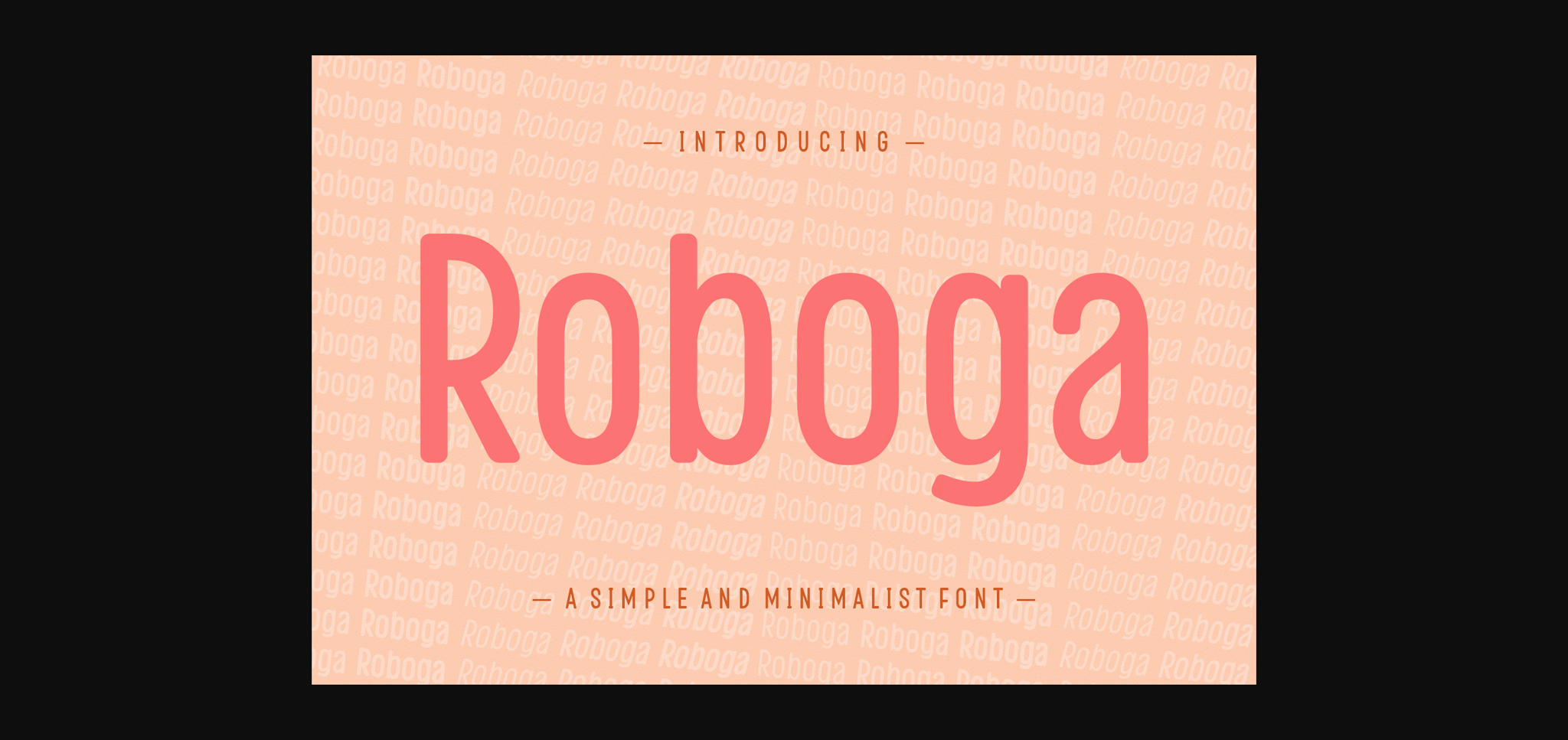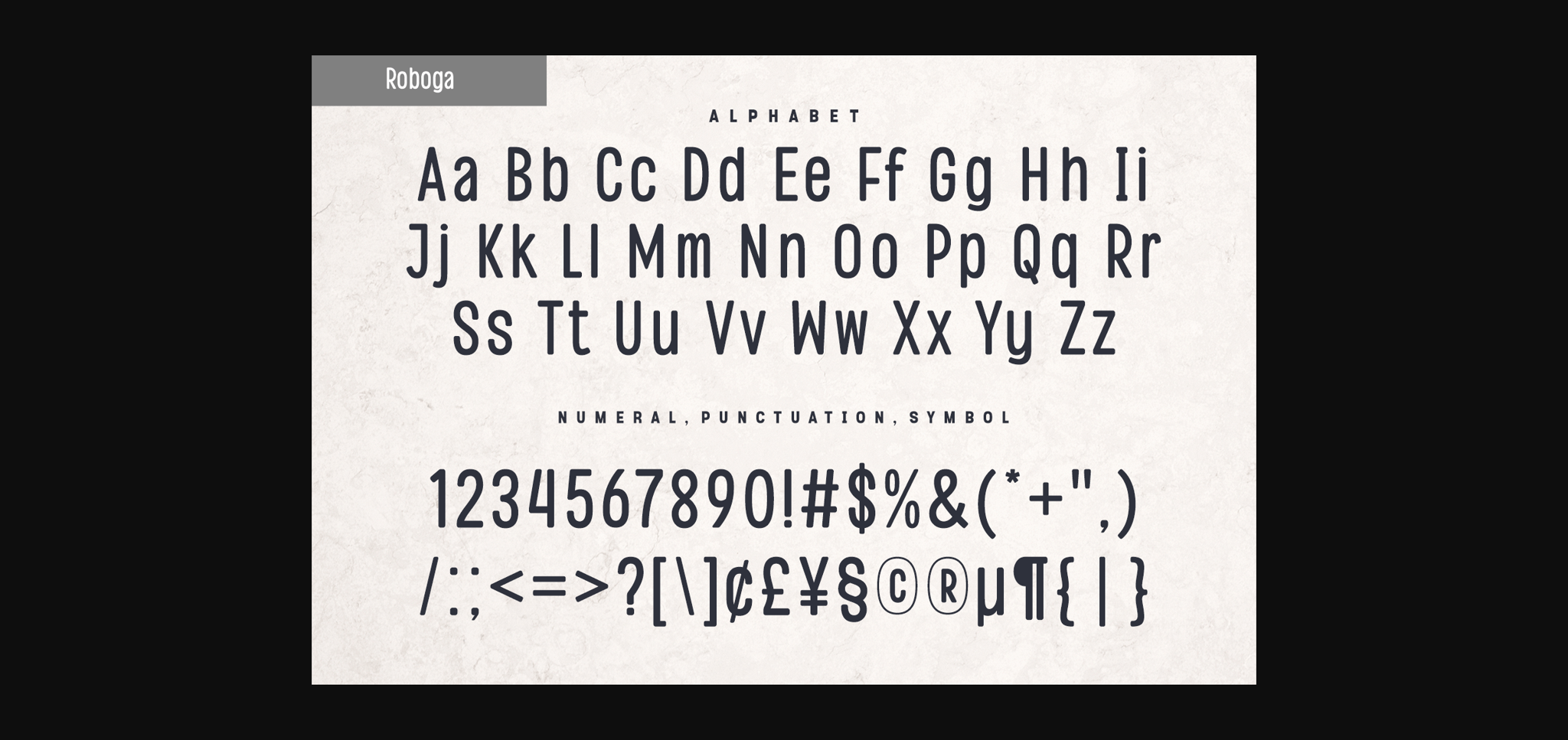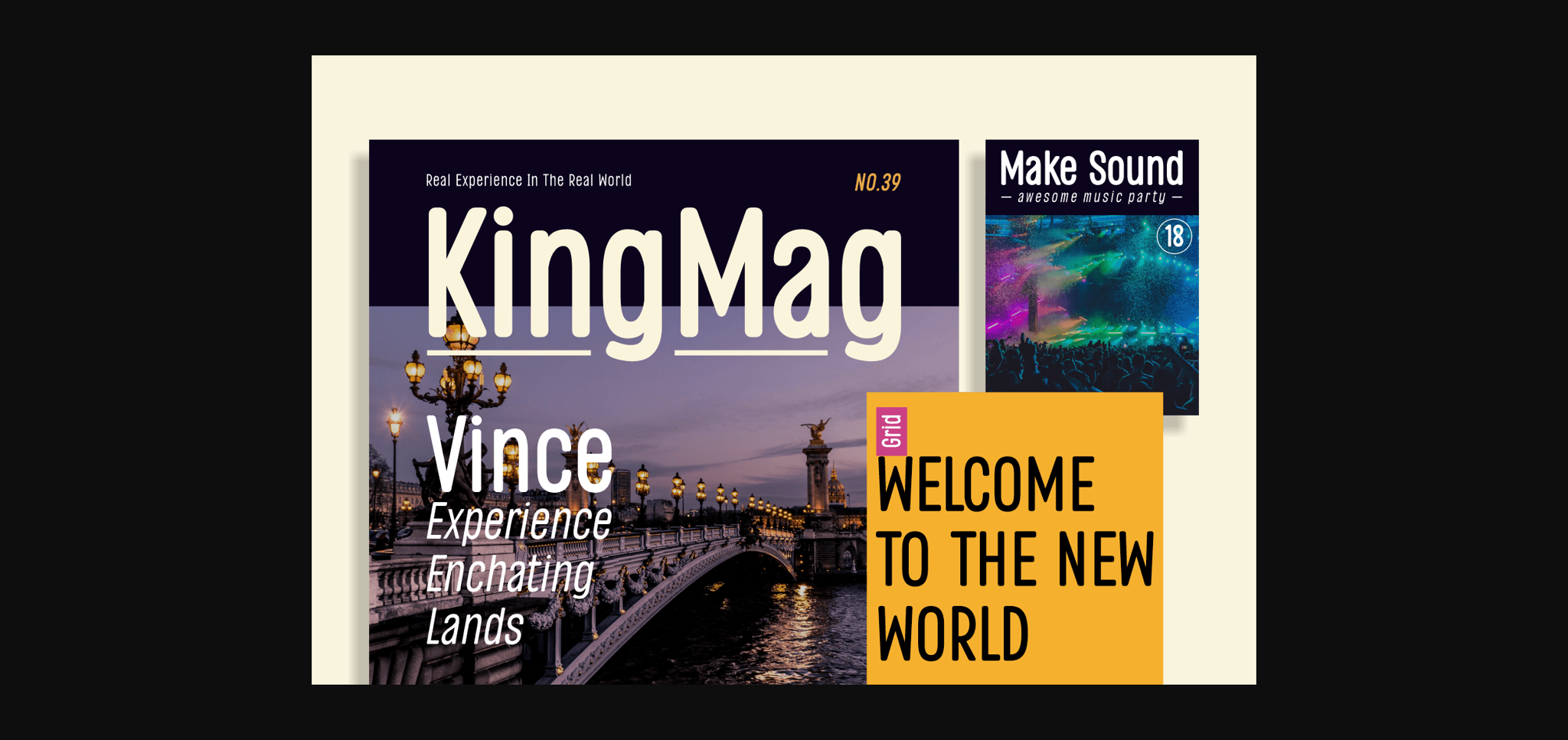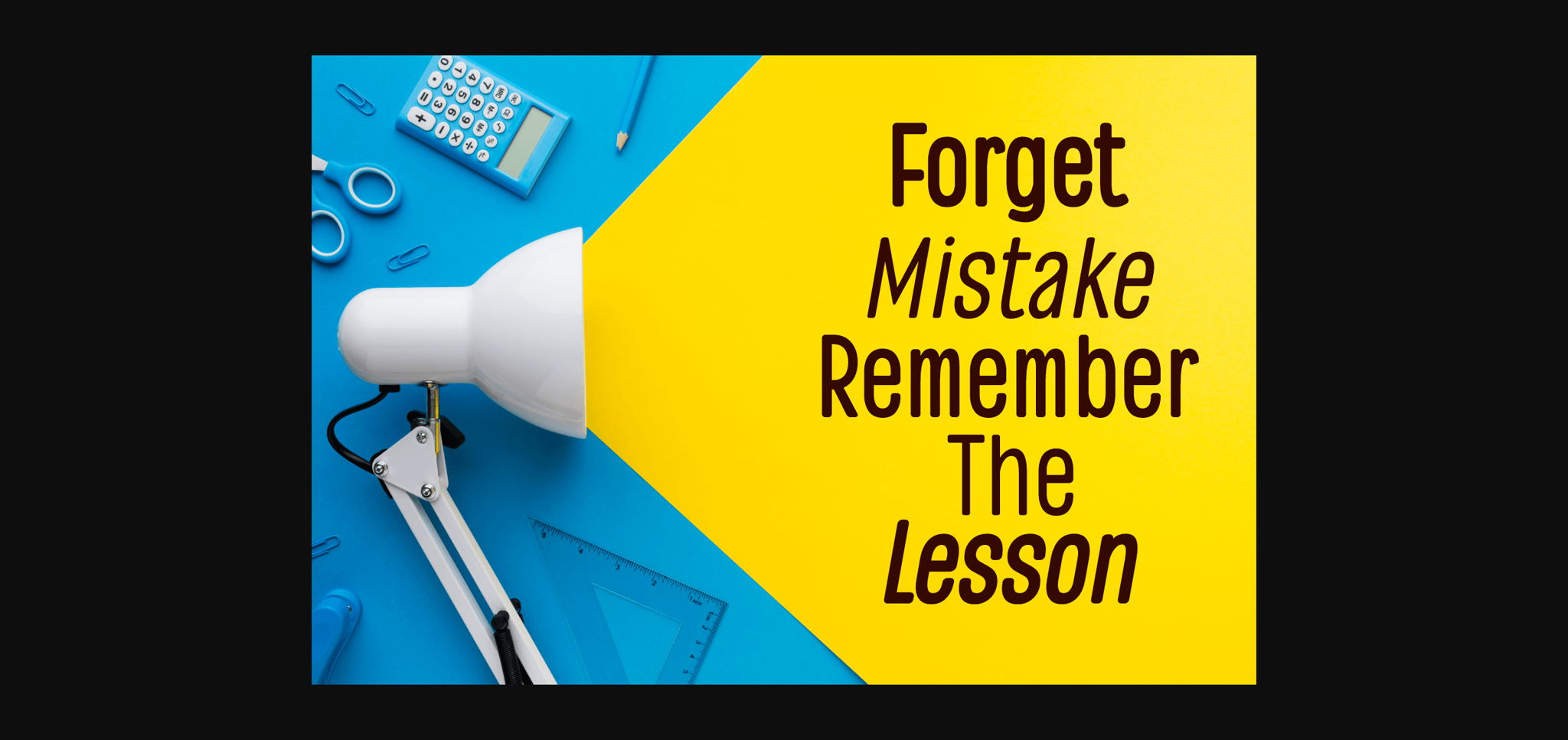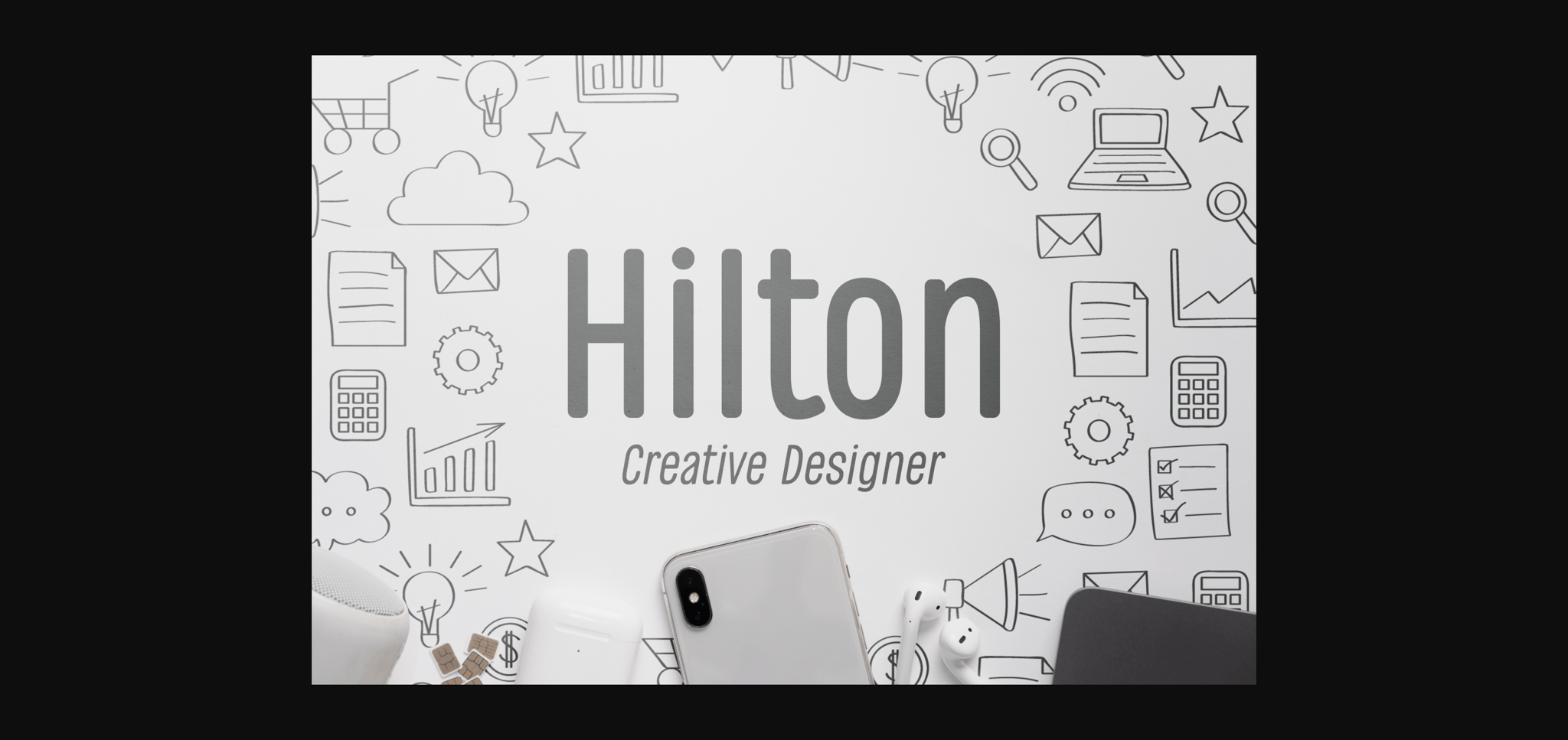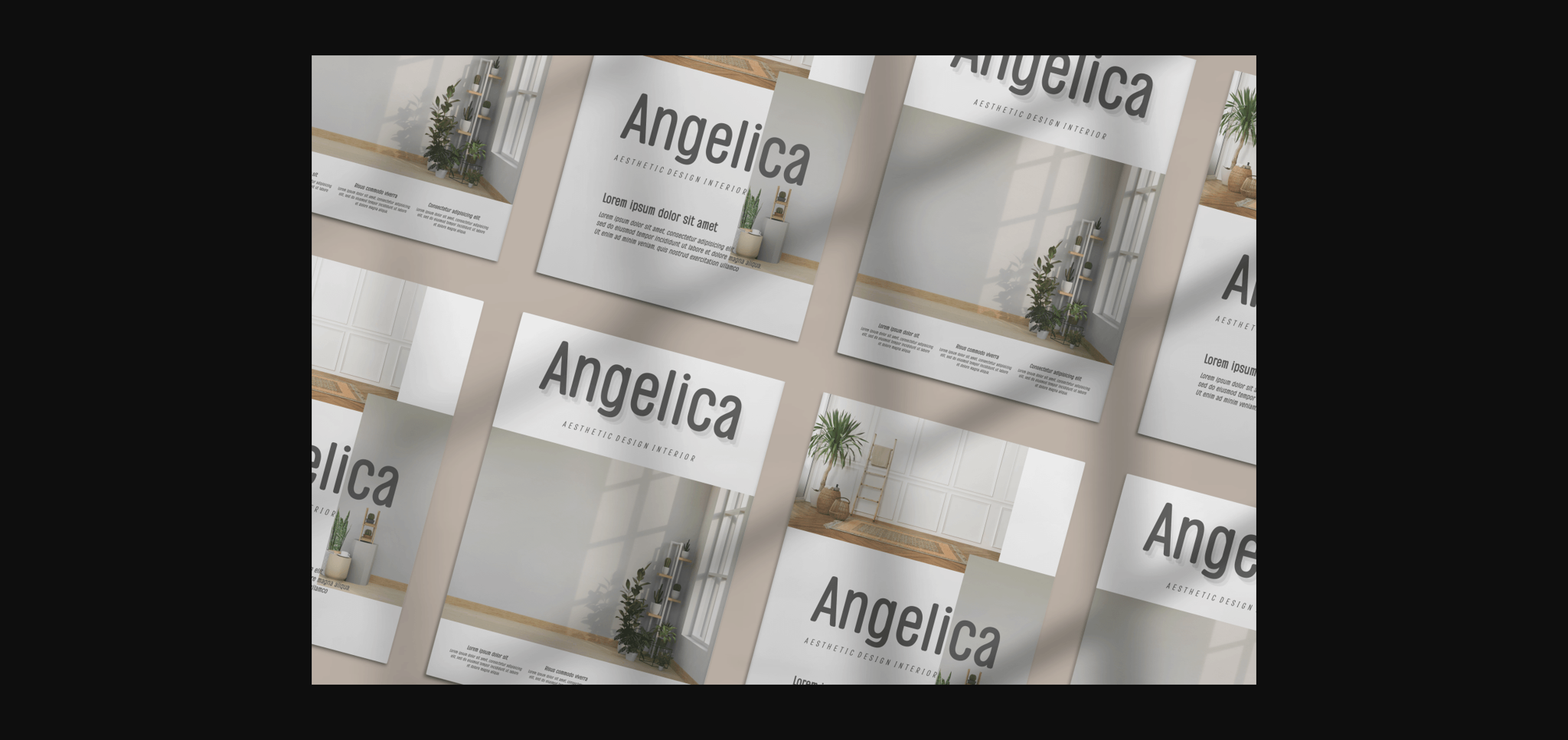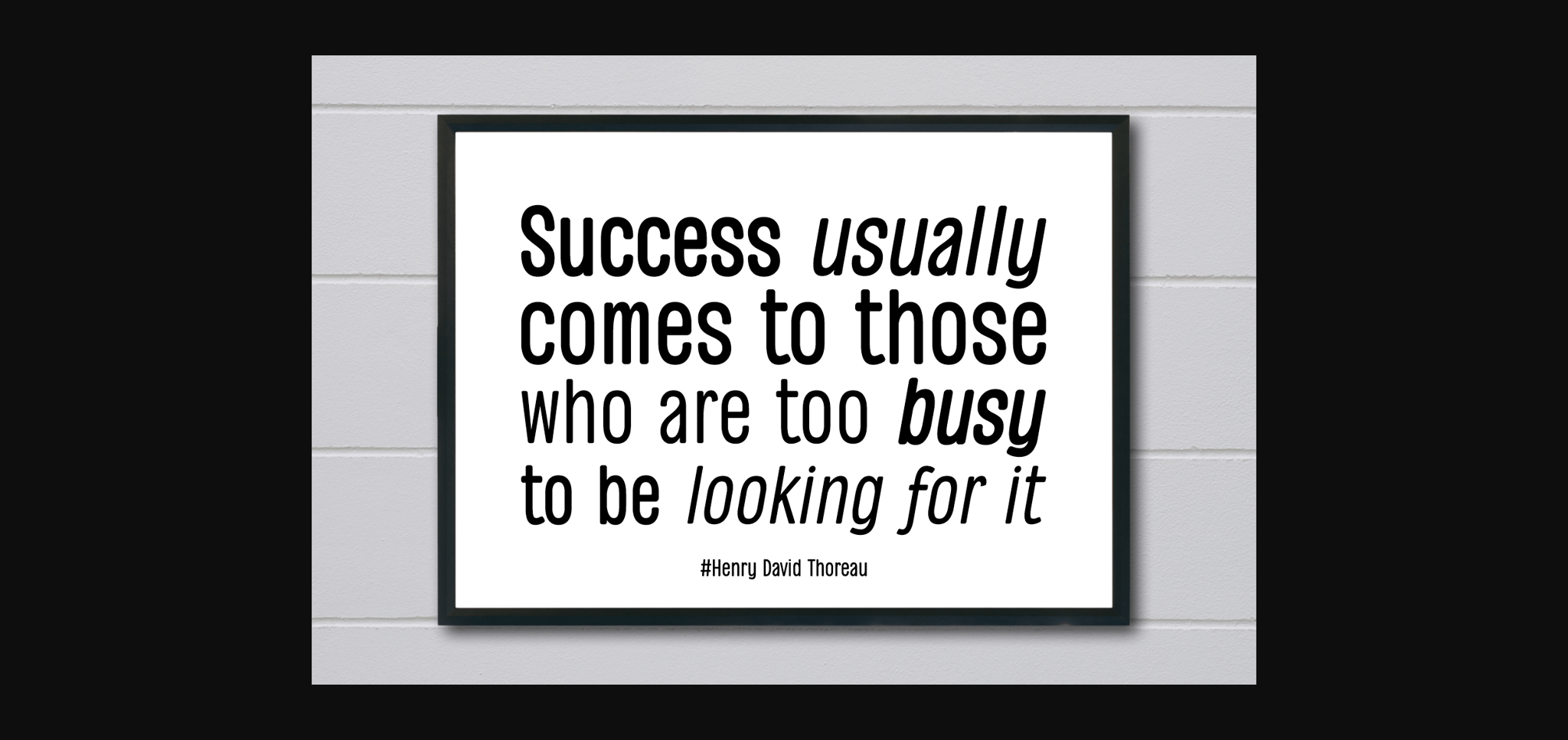
About Roboga Font
Roboga is a classy and neat sans serif font featuring the perfect amount of trendiness. No matter the topic, this font will be an incredible asset to your fonts’ library, as it has the potential to elevate any creation.